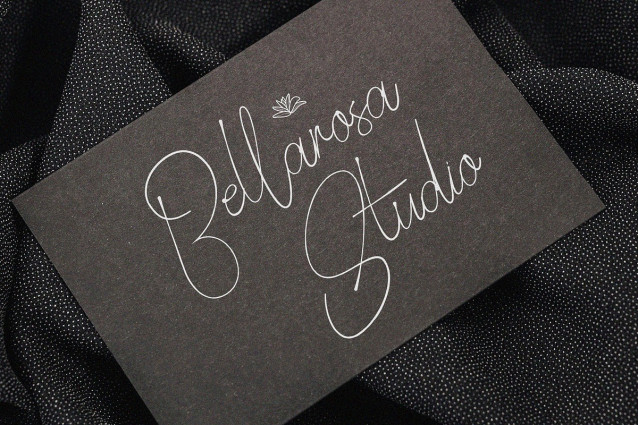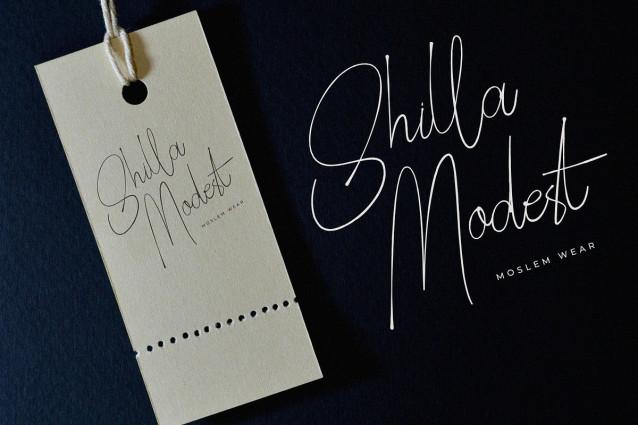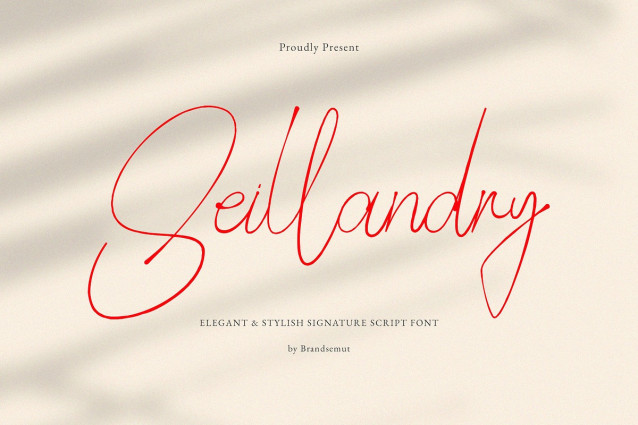
Seillandry Signature Font
Seillandry Signature Font is a elegant and stylish handwritten script, that you can use to perfect your design. You will get full set of lowercase and uppercase letters, multilingual, numerals and punctuation.